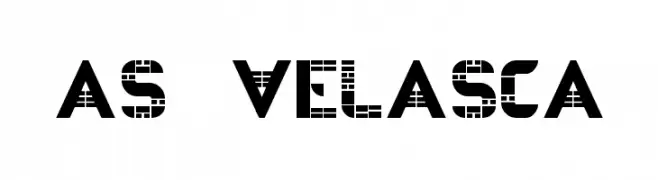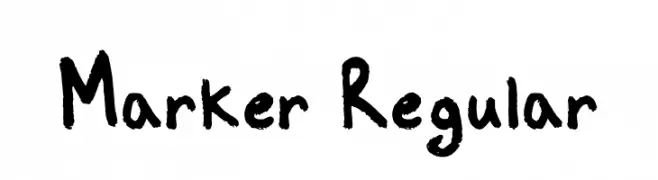
A bold, pixelated typeface with a retro digital aesthetic.
A lively, handwritten-style font with bold, irregular strokes.
A bold, marker-style handwritten font with a casual and playful vibe.
A bold, geometric font with square cutouts, offering a digital and futuristic look.
A sleek, modern, and slightly italicized font with a light and airy appearance.
A bold, modern font with unique curvature and strong presence.
A chaotic, sketch-like font with a hand-drawn, energetic style.
A pixelated, blocky font inspired by retro digital displays.